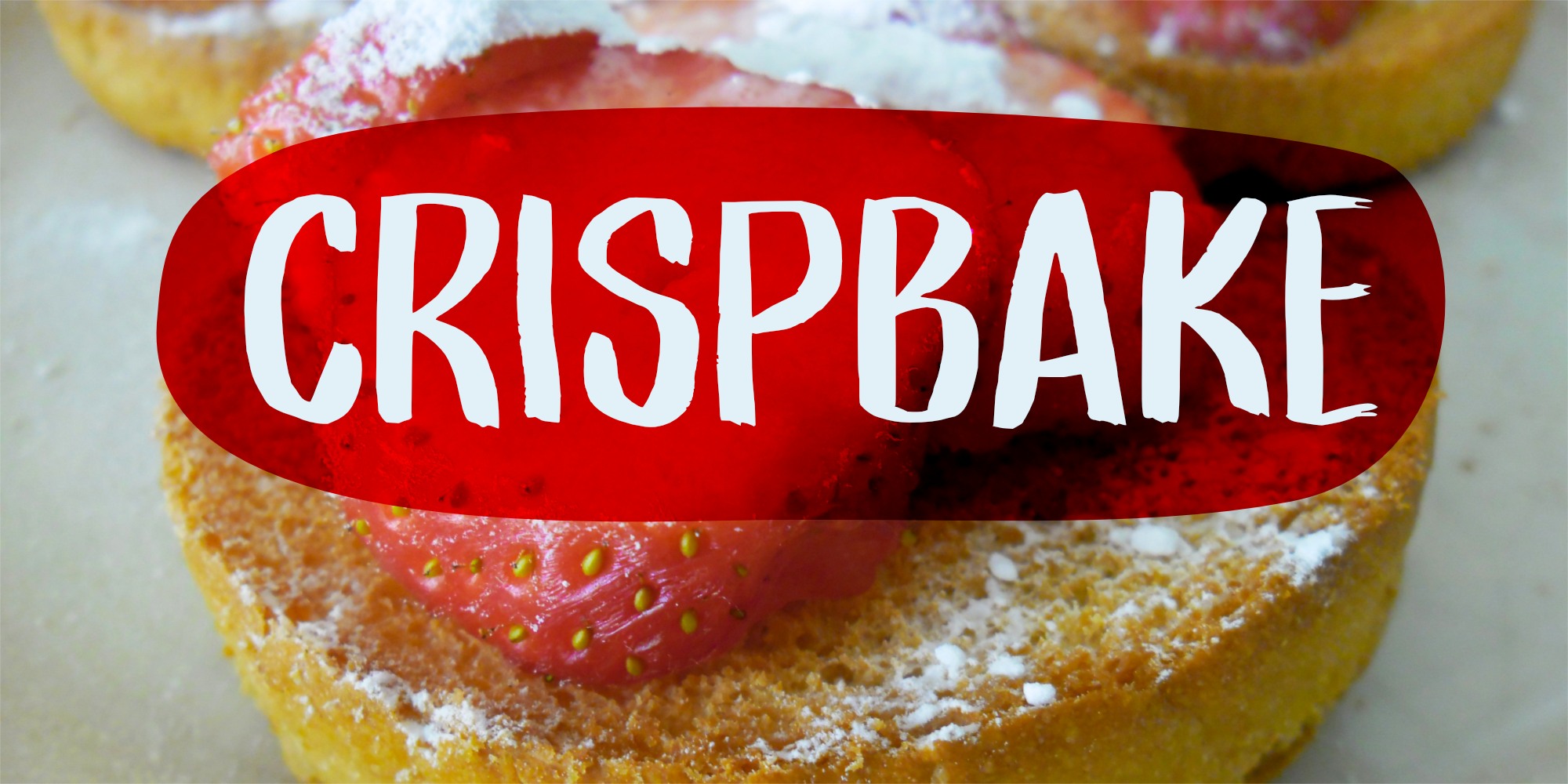
The Crispbake Font excels in various design applications including artisanal bakery branding, fresh bread packaging, crispy pastry marketing, golden-brown cafe signage, rustic bakehouse communications, wholesome breakfast restaurant identities, craft baking ingredient labels, warm oven-fresh promotions, traditional bakery shop materials, and delicious artisan food projects that demand crispy freshness and golden-baked sophistication.
What makes the Crispbake Font exciting is its perfect capture of freshly baked goodness and artisanal craftsmanship through letterforms that embody the crispy texture, golden color, and irresistible appeal of perfectly baked goods. This typeface demonstrates exceptional warmth through carefully crafted characters that suggest the crackling crust of fresh bread, the golden-brown perfection of artisan pastries, and the satisfying texture that makes baked goods so irresistibly appealing. The font's crispy personality makes it perfect for bakeries and food artisans seeking to communicate freshness, quality craftsmanship, and the kind of golden-baked perfection that creates loyal customers through typography that literally looks and feels freshly baked.
The Crispbake Font family typically includes golden weight variations that enhance the baked aesthetic, featuring warm styling options and extended character sets optimized for food marketing and artisanal communications. These family options often include bakery-inspired alternates, fresh decorative elements, and artisan symbols that provide designers with comprehensive tools for creating authentically crispy typography that celebrates the art of baking while maintaining contemporary design appeal and delicious visual impact.
Bakery professionals and artisan food brands consistently choose Crispbake Font Free Download for projects requiring typography that communicates freshness and artisanal quality. This typeface delivers exceptional performance in bakery marketing, food branding, and artisan communications where establishing quality and creating appetite appeal is essential for customer satisfaction. The font's crispy character makes it particularly effective for breakfast and bread applications. Download Crispbake Font Free Download today to access this delicious typeface that transforms food communications with its golden freshness and artisanal sophistication, creating compelling bakery experiences that celebrate the timeless art of baking while maintaining the crispy appeal that makes fresh-baked goods absolutely irresistible to food lovers everywhere.